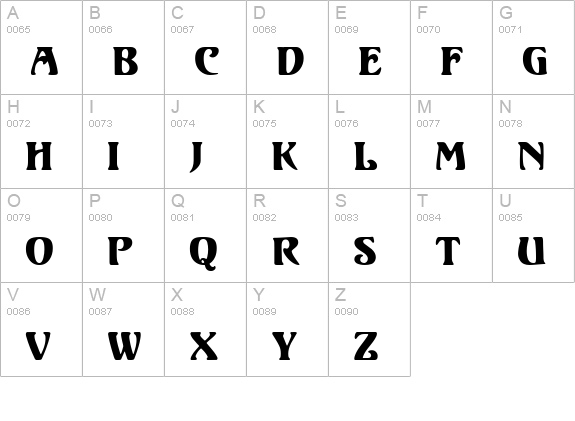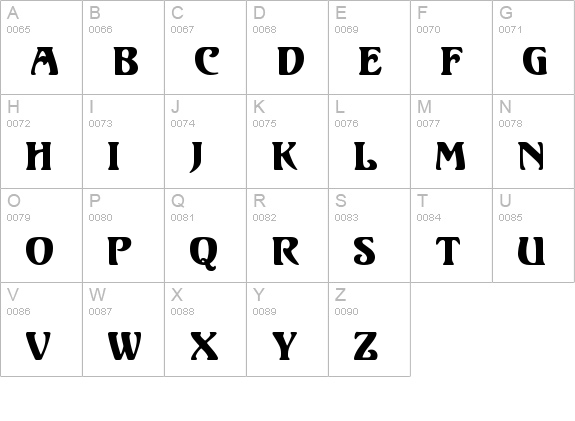
Unicorn Regular is the standard, neutral variant in the Unicorn typeface family \xE2\x80\x94 well suited to general body text, paragraphs, and standard typographic work.
Unicorn Regular font is a whimsical and enchanting typeface that will add a touch of magic to any design project. Its elegant curves and playful serifs create a unique and fantastical aesthetic that is perfect for creating eye-catching headlines, invitations, posters, and more. This font captures the essence of the mythical unicorn, with its graceful forms and ethereal charm. Its letters are beautifully crafted, with bold strokes and delicate details that create a sense of wonder and mystery. Whether you're designing a children's book cover, a fantasy-themed website, or a mystical logo, Unicorn Regular font will bring your ideas to life with its captivating presence. What makes Unicorn Regular font even more remarkable is that it is free! Yes, you heard that right. This stunning typeface is freely available to download at FontsMarket.com, a trusted source for high-quality fonts. Now you can unleash your creativity without worrying about breaking the bank. With Unicorn Regular font, your designs will stand out from the crowd and captivate your audience. So go ahead, embrace the magic, and download this delightful font today. Let your imagination run wild and watch as your creations come to life with the help of Unicorn Regular font from FontsMarket.com.